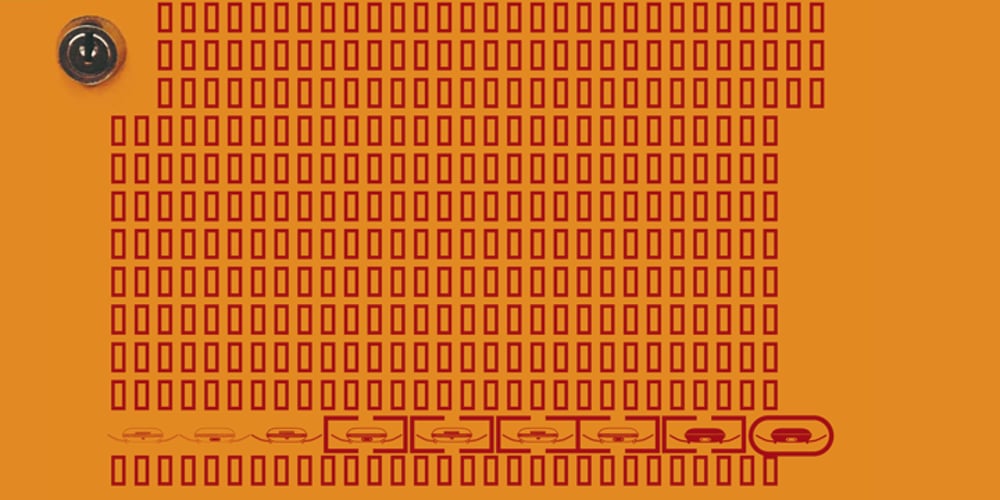
Fontology Font Family was designed by Fabrizio Schiavi and published by FSD. Fontology contains 1 styles and family package options. Fontology-E is an experimental font designed by Fabrizio Schiavi. It was created for the cover of the Fontology catalogue. Schiavi’s need was to build an optical false modulation effect with versions of the logotype and typical rectangles of an empty font chart. The basic idea was to create a page that contained many rectangles in order to demonstrate the modulation. At the same time, it was important to understand that Schiavi inserted 8 versions of the same logotype each time the corresponding letter is digitized in e, a, d, f, g, h, c and b. The inside of the catalogue has the same layout and text, which is revealed by fanning the pages. Schiavi confess that Fontology-E is a highly experimental typefont.